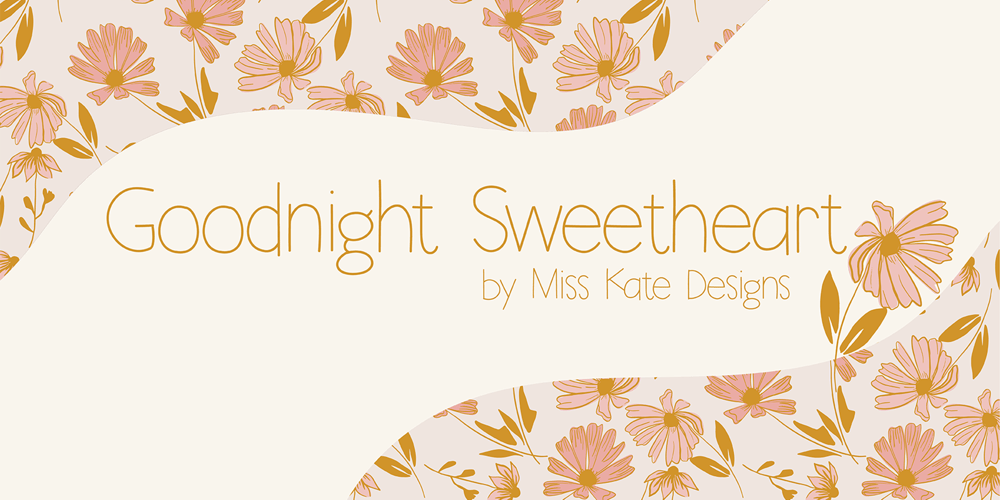
Goodnight Sweetheart Font Family was designed by published by Miss Kate Designs. Goodnight Sweetheart contains 1 styles and family package options. Goodnight Sweetheart is a cute, handwritten font suitable for book cover, t-shirt, tote bags, merchandise, books, poster, title, quotes, gift cards, invitations, and more!